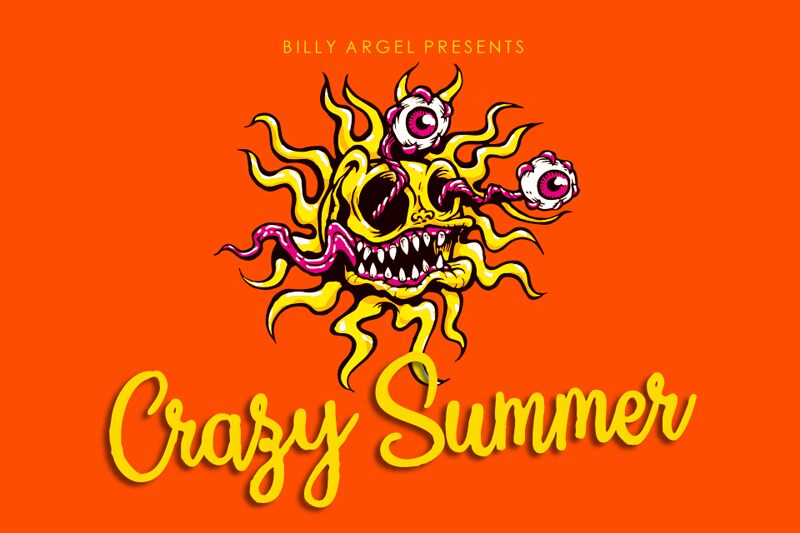
Crazy Summer, the latest creation from Billy Argel Fonts, is a fun and playful handwritten typeface perfect for any lighthearted project. With its semi-light weight, this font exudes a carefree vibe that's perfect for summer-themed designs, DIY blogs or even invitations to a backyard barbecue. The whimsical curves and loops of Crazy Summer give off an organic feel that adds a touch of personality to any design. Use it for your next project and watch as it brings your words to life with its unique style!